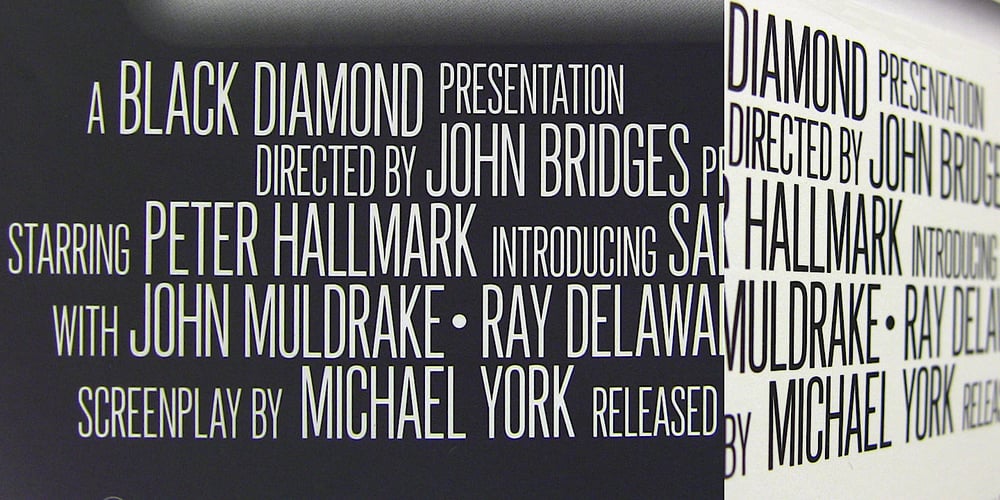
Silverscreen
Silverscreen font
Silverscreen Font Family was designed by Lloyd Springer and published by TypeArt Foundry. Silverscreen contains 4 styles and family package options. Just like movie poster credits.